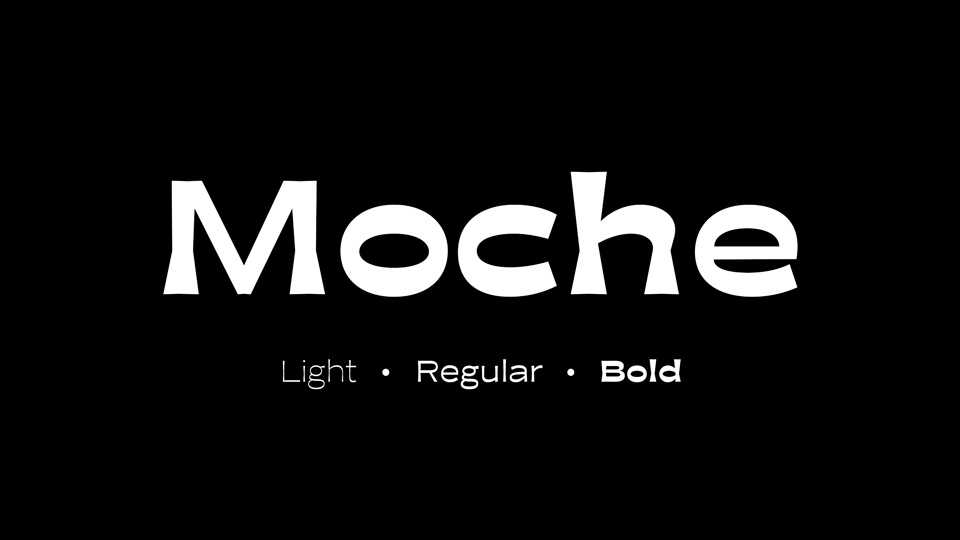
Download Moche typeface, a reversed contrast sans serif font family in three weights. Moche takes its flavor in Classic Roman inscription, reinterpreted in a modern style, wider than normal.
Designer: Pépite Collectif